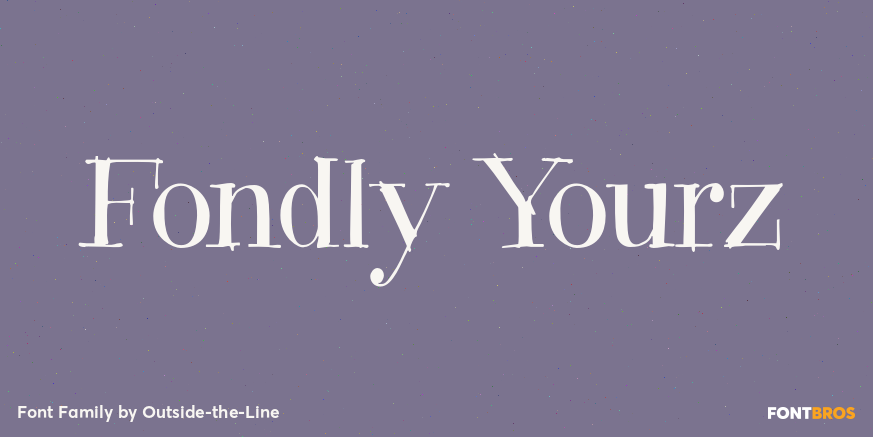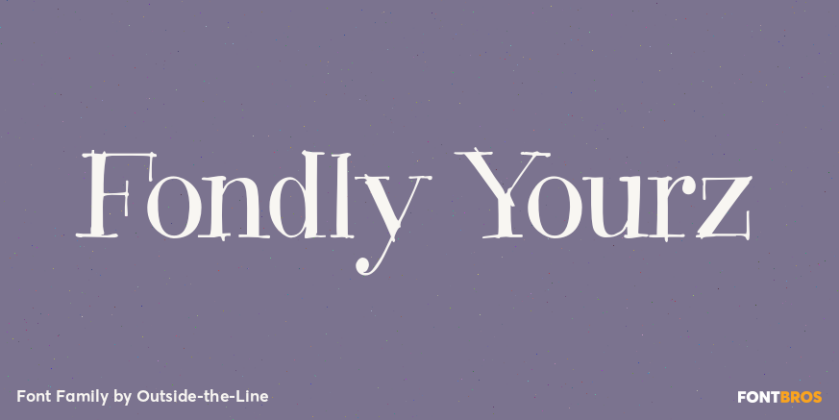
HomeFont BrosDistressedFondly Yourz DistressedSerifHandwrittenWacky Fondly Yourz FacebookXPinterestWhatsApp 1 of 1 About Fondly Yourz is a less than serious, hand drawn serif font. This headline font has nice thick and thin lines. Pair it with a sans serif font for body copy for a fresh contemporary look.  DOWNLOAD ON FONT BROSThis font is sold and delivered by Font Bros. Font Canyon may earn a commission if you buy through this link. People also explored Good Morning Font Paperbook Font Straight White Font Roadtrip Font Coming Soon Pro Kelly Green Can Cooler Mockup Contener Font Aliaka Rimon Font Happy Easter Icons Font 228 0 TagsFondly Yourz Font Previous articleMarzipanNext articleYWFT Moteur LEAVE A REPLY Cancel reply Comment: Please enter your comment! Name:* Please enter your name here Email:* You have entered an incorrect email address! Please enter your email address here Website: Save my name, email, and website in this browser for the next time I comment. Personal Use Free Multicolore Personal Use Free Read more about this font Foo Personal Use Free Read more about this font Happy Santa Personal Use Free Read more about this font Persephone Free Personal Use Free Read more about this font BLOG How to Cut Any Font on Cricut: Convert a Font to SVG (Free) Turn any font into a clean SVG so it cuts crisp on Cricut - a quick 3-step workflow using a free font-to-SVG tool. Top 10 Handwritten Fonts That Elevate Your Designs The 10 Best Handwriting Fonts to Add Personality to Your Designs Best Fonts for YouTube Videos: Make Your Thumbnails Stand Out